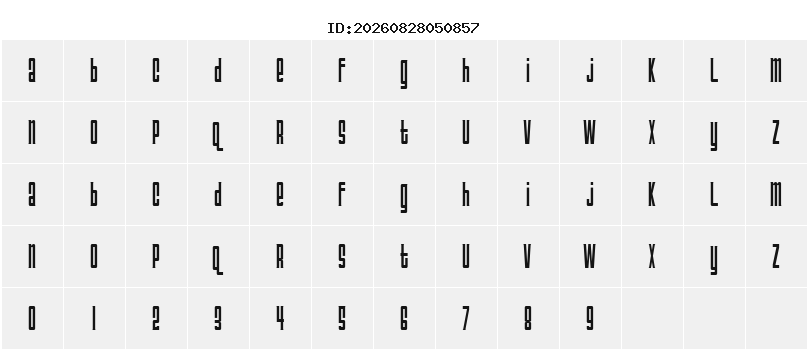
TriacSeventyone Preview
• Font Name: TriacSeventyone
• Full Font Name: TriacSeventyone
About TriacSeventyone.ttf
TriacSeventyone.ttf is a modern, elegant sans-serif font designed for ultimate readability and visual harmony. Perfect for branding, headlines, web design, and print materials.